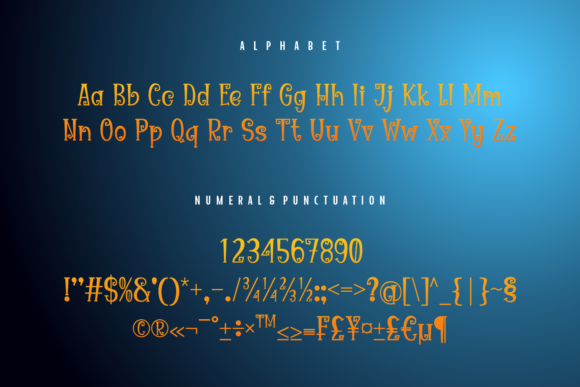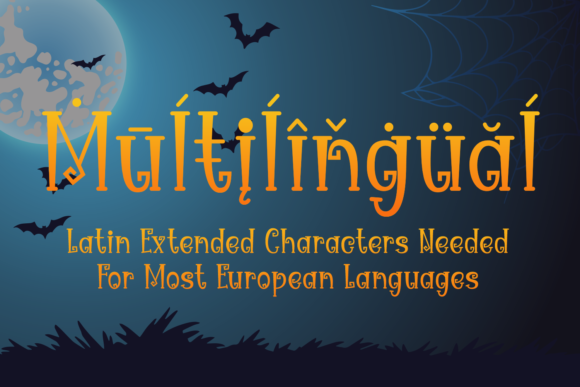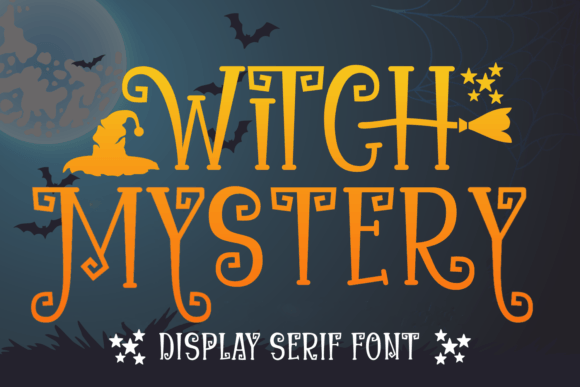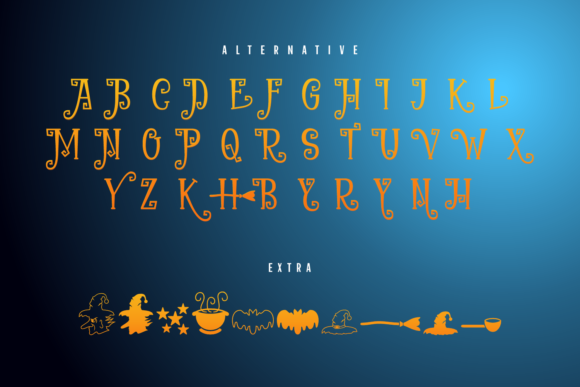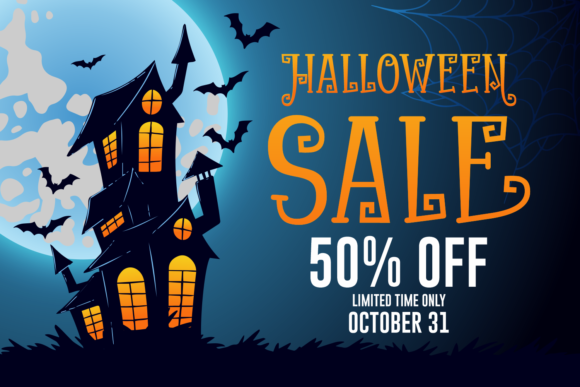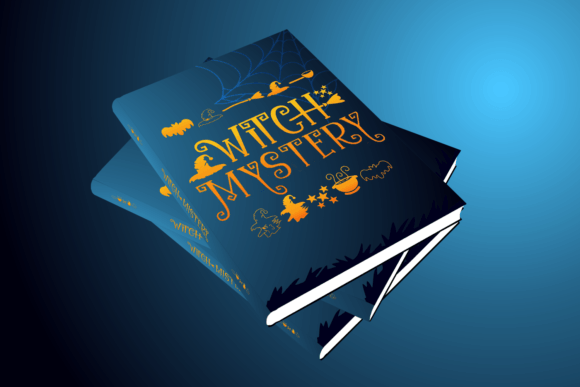
Witch Mystery Font
Witch Mystery is a whimsical and spooky display font. Add it to your Halloween crafts, horror movie posters, t-shirts, and anything that requires a spectacular look. Witch Mystery is PUA encoded, which means you can access all of the glyphs and swashes with ease!